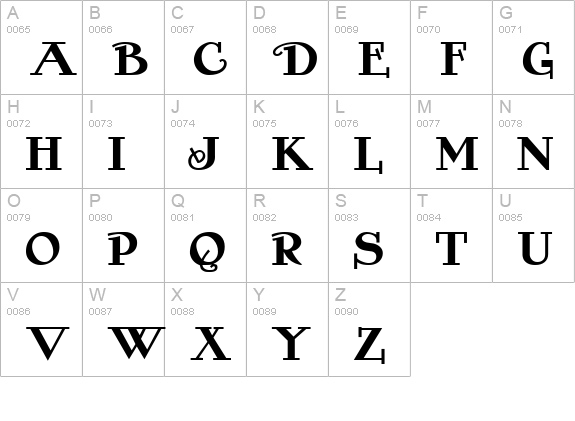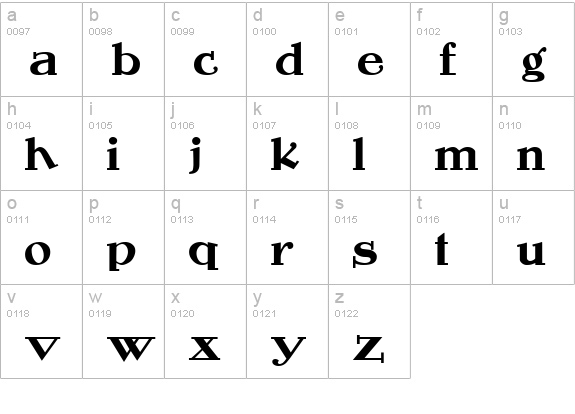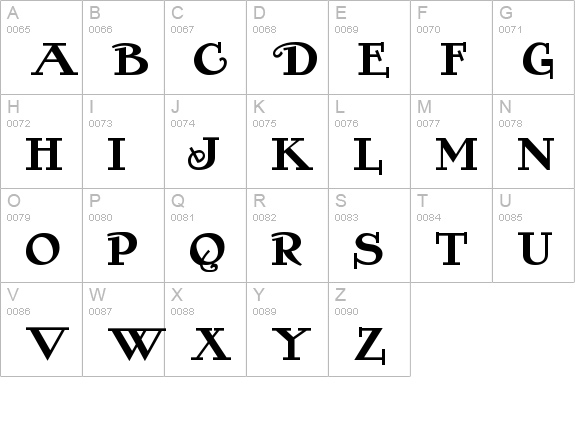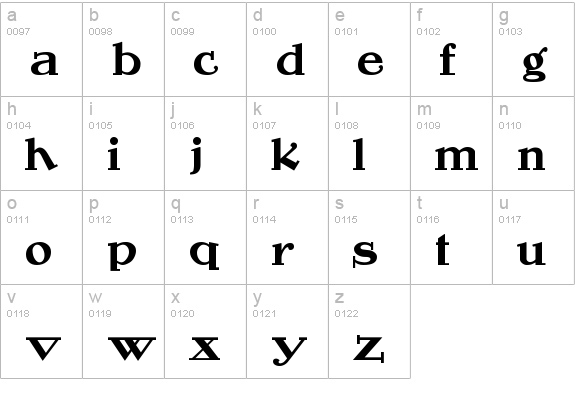
Rogers Font Details
Rogers font is a sleek and modern typeface that effortlessly combines elegance with functionality. Its clean lines and contemporary design make it a versatile choice for a wide range of design projects, from branding to editorial layouts. With its perfect balance of sophistication and readability, Rogers font is sure to make your text stand out. What's even better is that Rogers font is available for free download at FontsMarket.com. Whether you're a professional designer looking to add a fresh new font to your collection or a hobbyist creating personal projects, Rogers font offers high-quality typography at no cost. Don't miss out on the opportunity to enhance your designs with this beautiful and versatile typeface. Download Rogers font today and elevate your creative work to the next level.